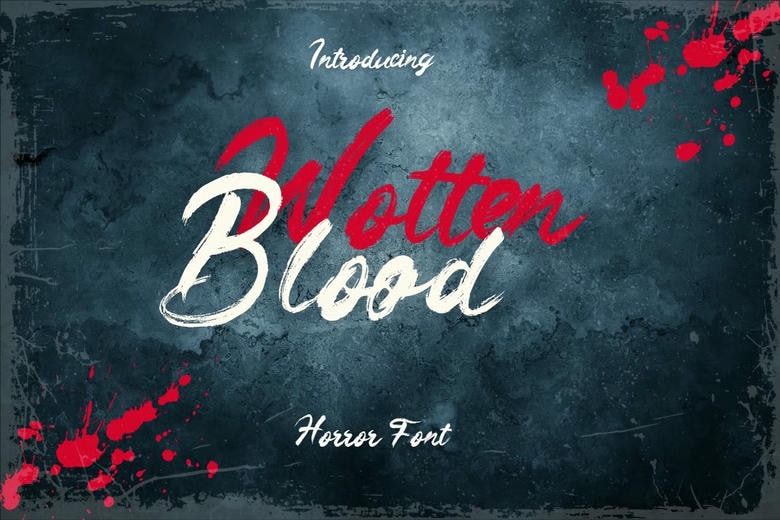
Wotten Blood is a horror brush font that adds a spooky touch to every letter. It comes with special ligatures to make your designs stand out. You can use this typeface for elegant logos, branding, travel ads, magazine layouts, beauty products, packaging, quotes, or as a stylish text overlay on any background image.
Wotten Blood Horror Brush Font